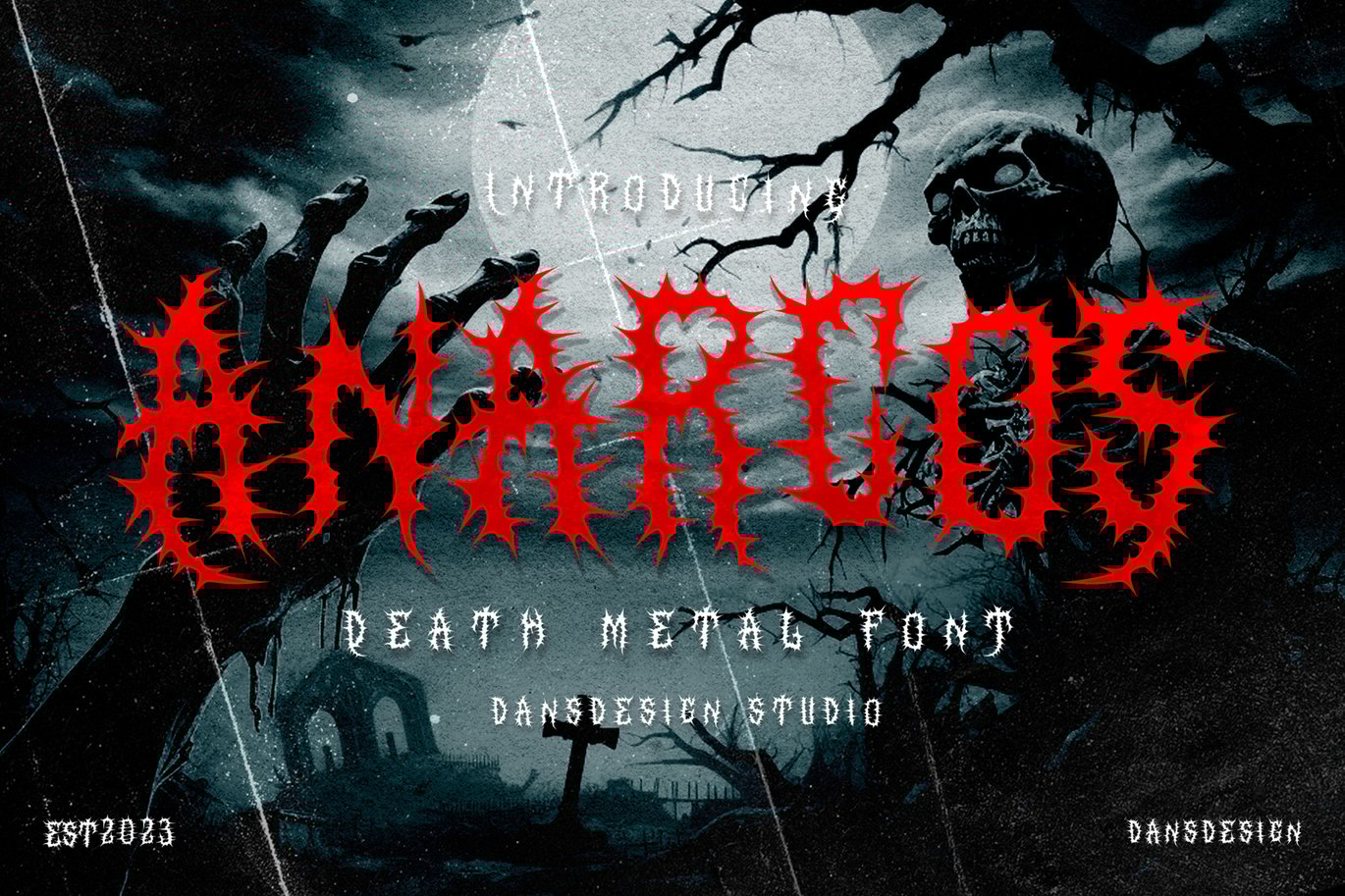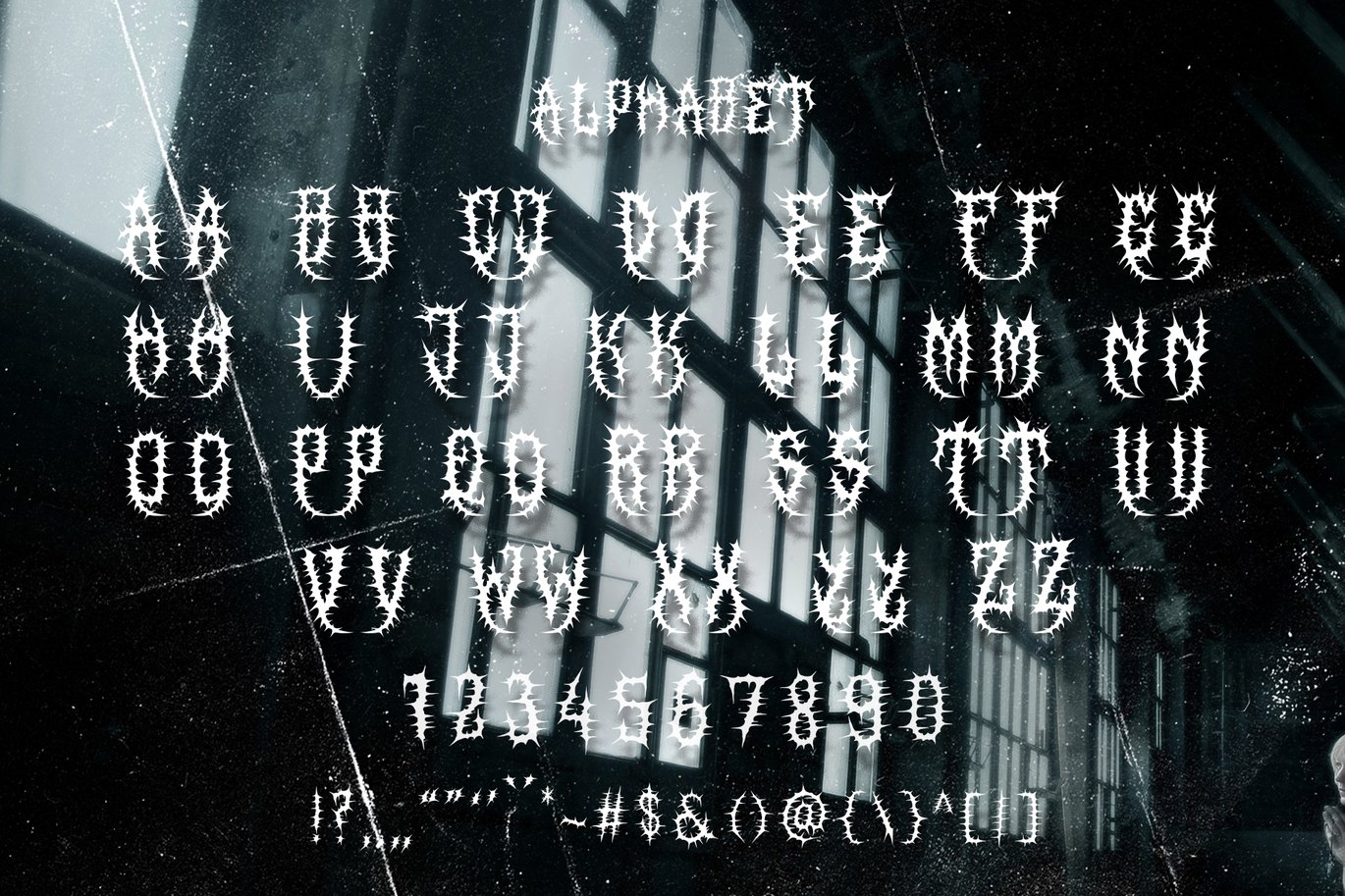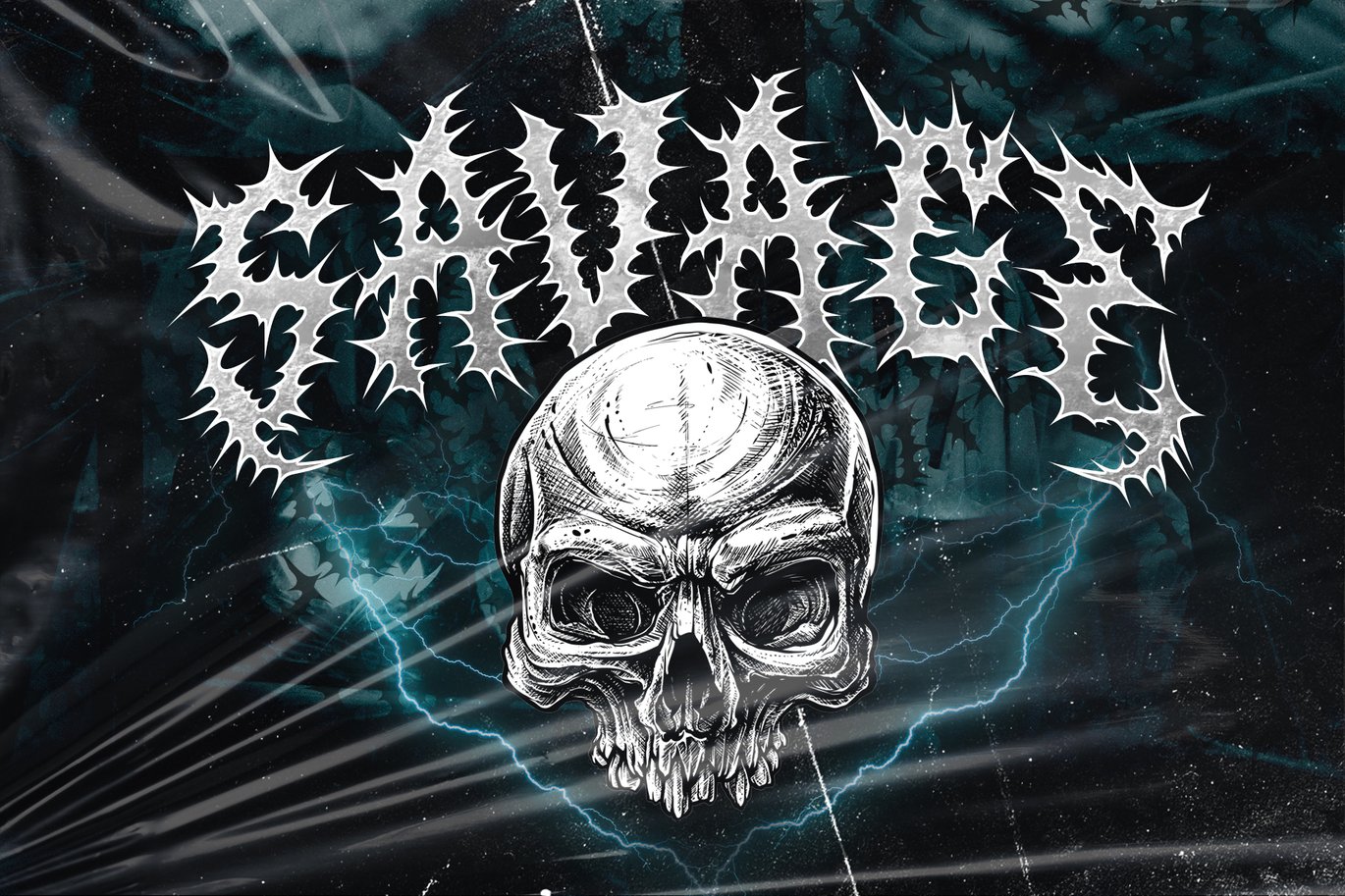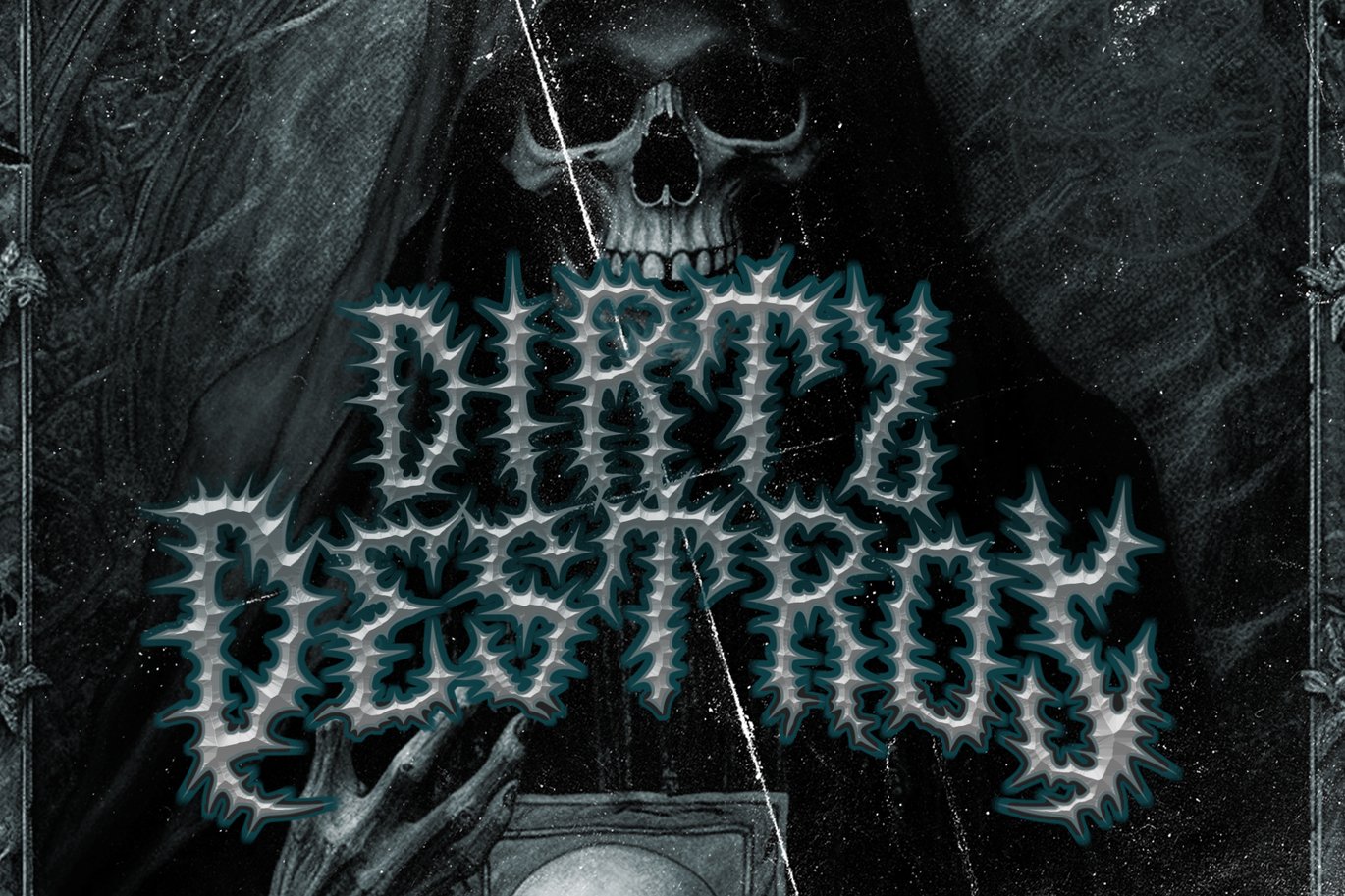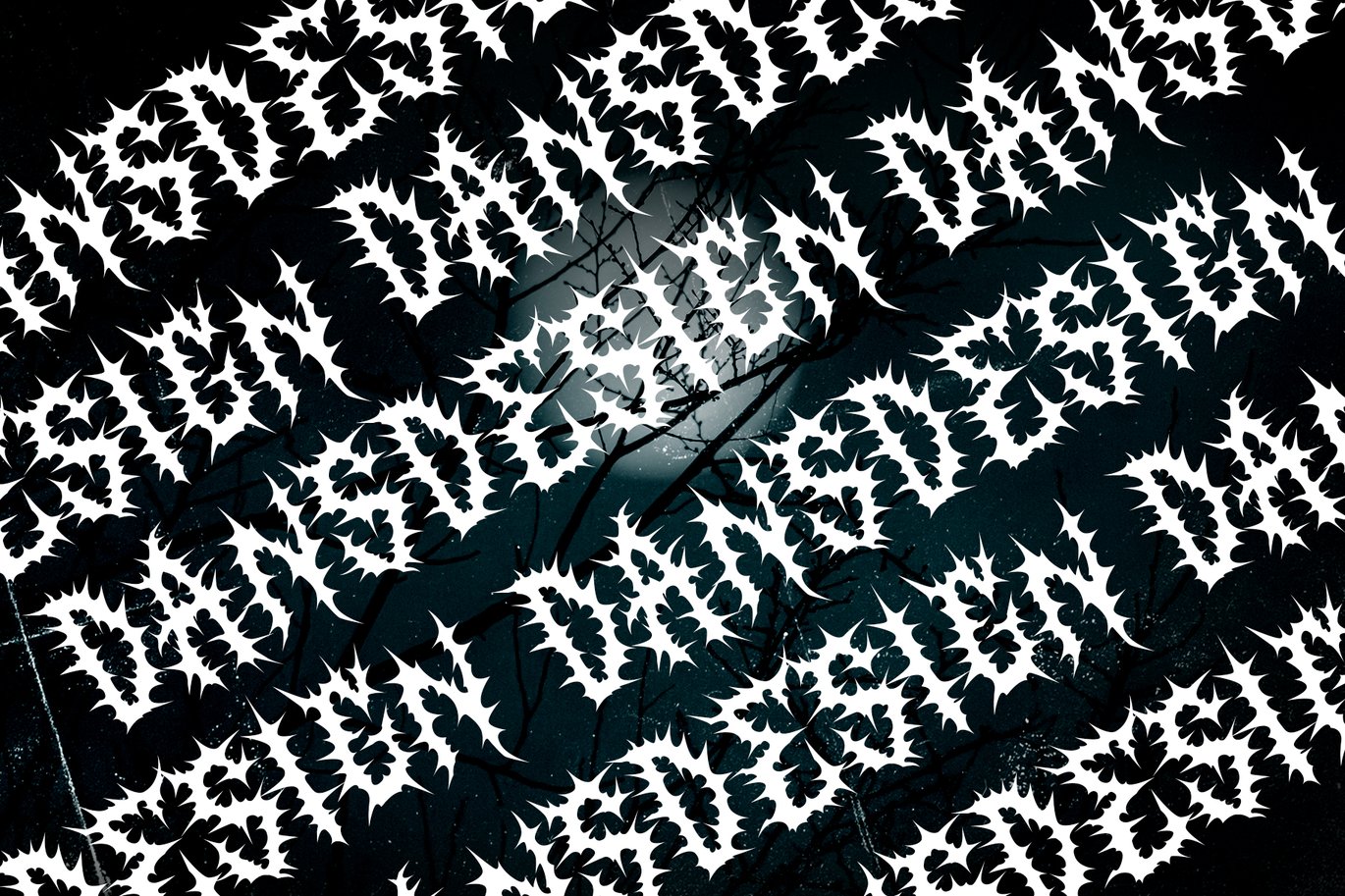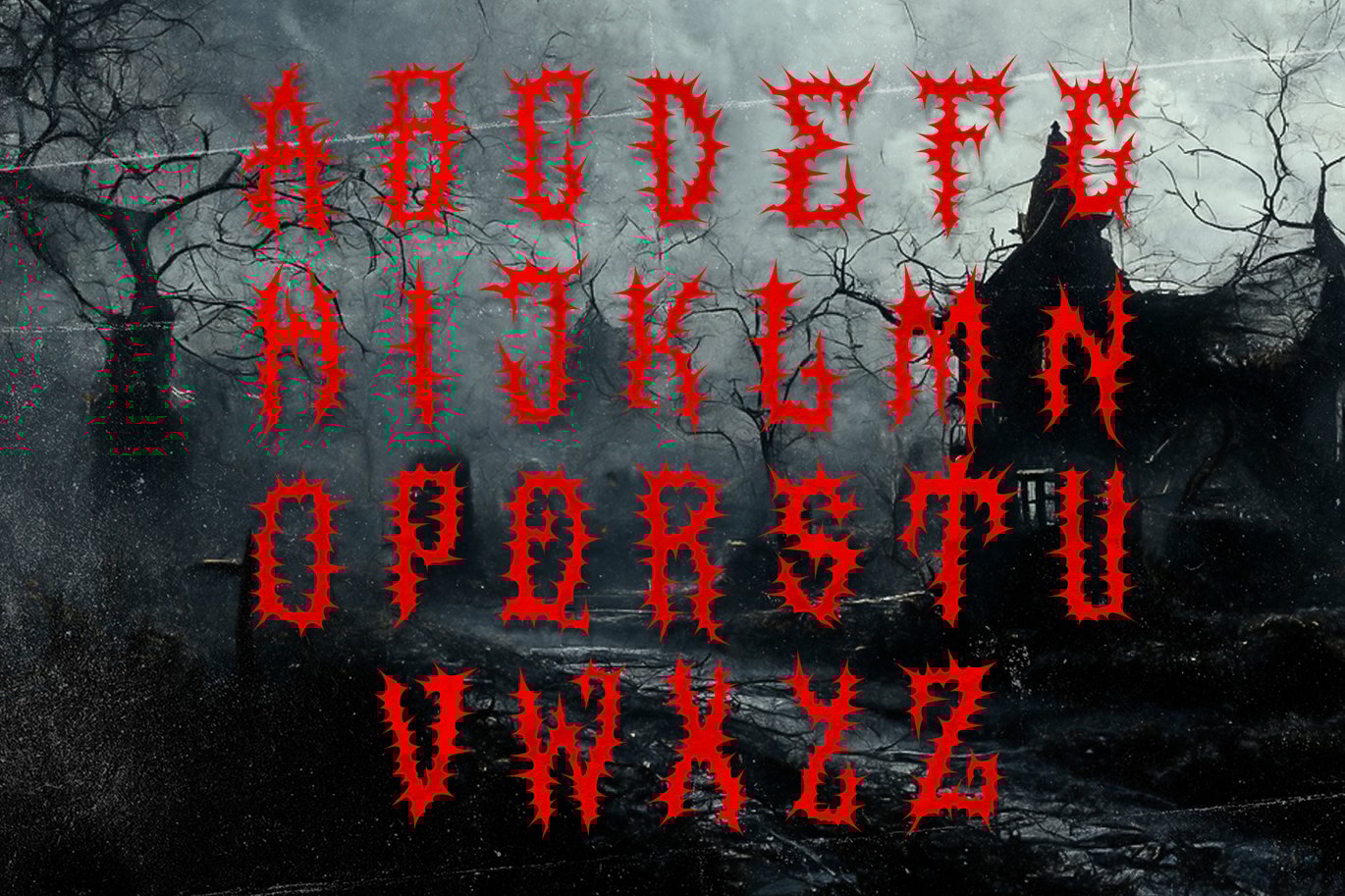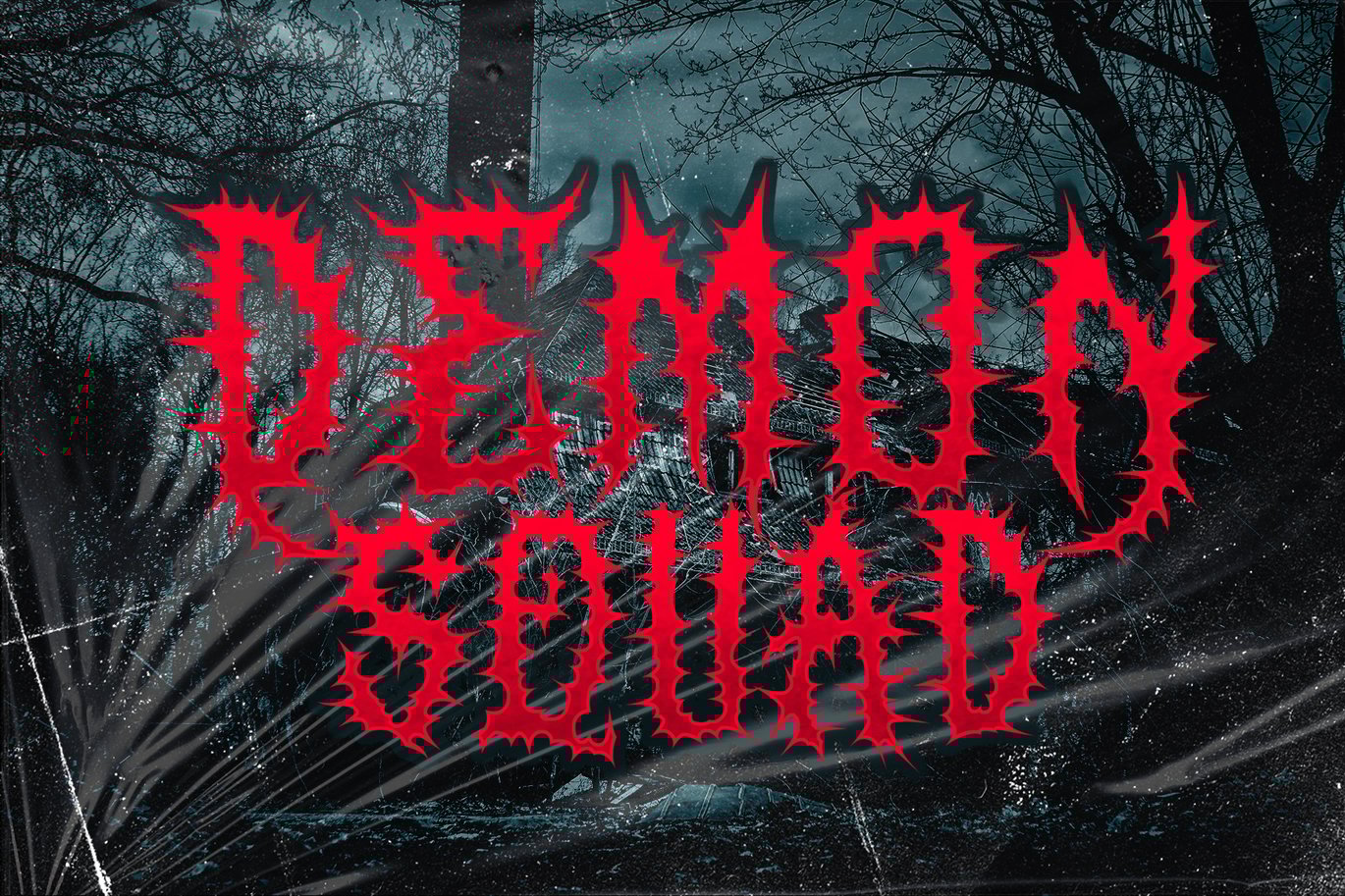
Anarcos Blackletter Metal Horror Font
Anarcos BlackletterMetal Horror Font
Anarcos Blackletter Metal Horror Font is a distinct, highly detailed, and Horror Metal Font font. It would make a great choice for exquisite Music, Poster, retro-urban designs, tattoo business branding, logos, vintage designs, and more.